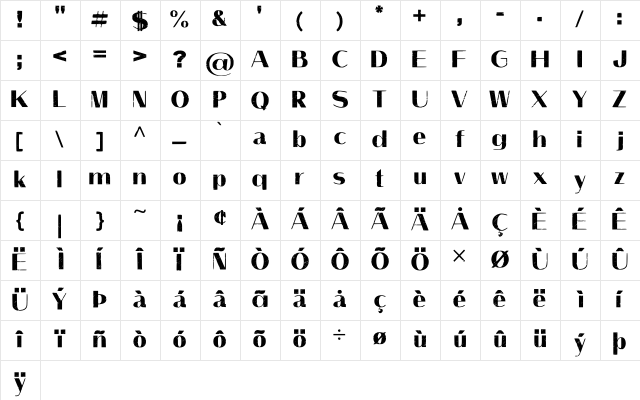
Leilani - Personal Use Only Regular
| Designer | Md. Shohail Bhuian |
Design Context for Leilani - Personal Use Only Typeface
Leilani - Personal Use Only offers clean, dependable letterforms without strong stylistic allegiance, making it a practical choice for designers who need flexibility.